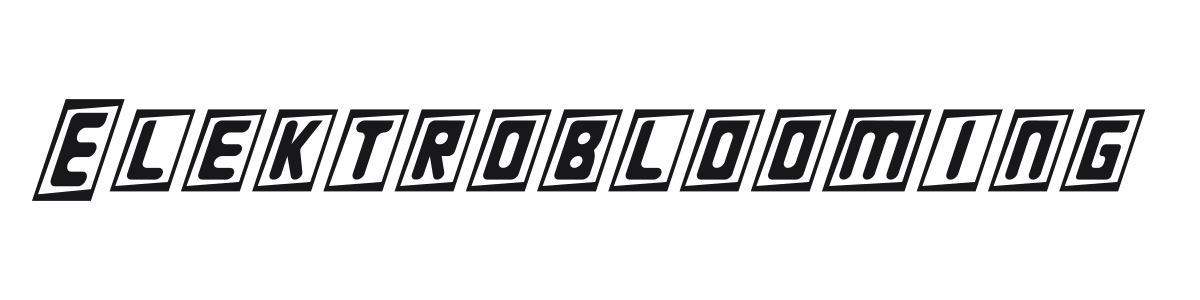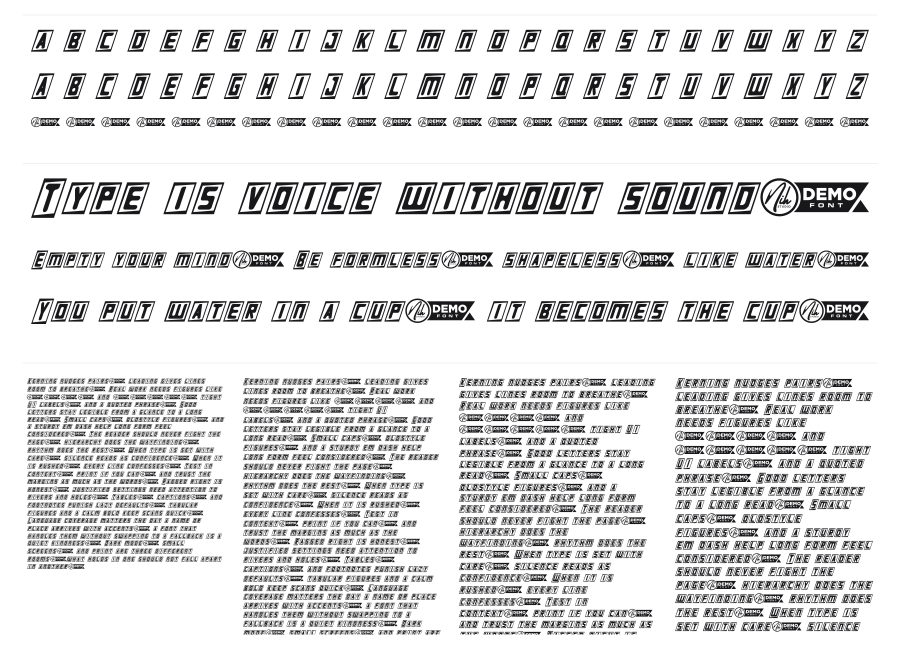
Elektroblooming
Elektroblooming is a bold inline display font where every character sits inside its own slanted parallelogram border, giving the text a stacked, paneled look straight out of 1970s sports and racing graphics. The extreme italic angle and thick uniform strokes make it feel fast and aggressive at any size. Strong choice for sports branding, poster headlines, and retro-themed packaging.